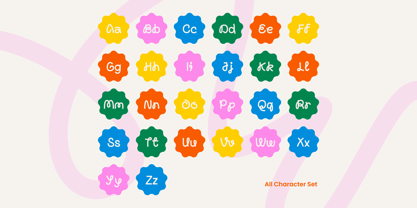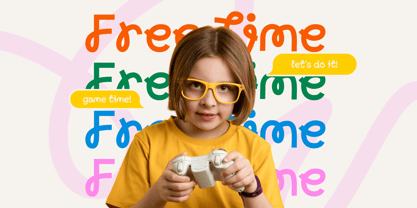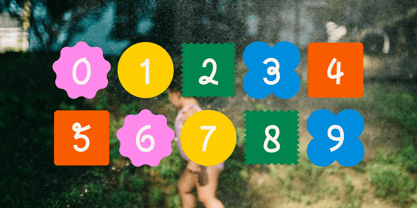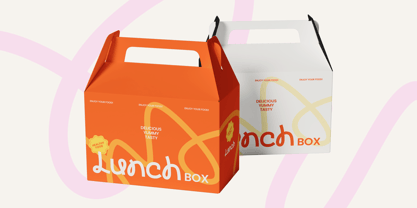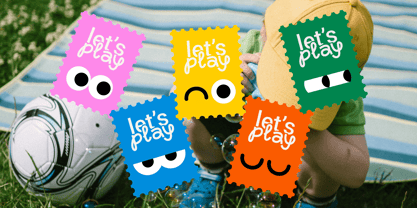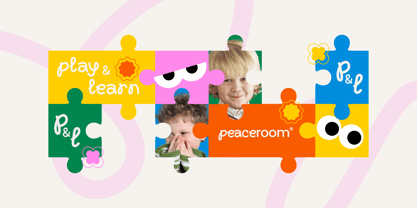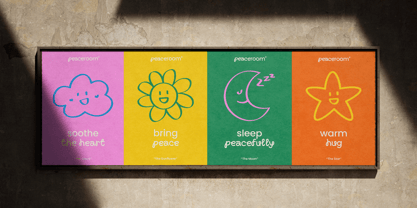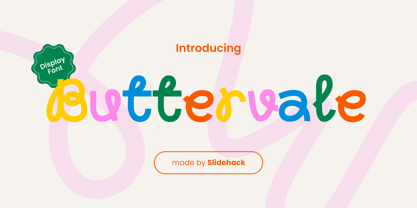
Buttervale
by Slidehack
The Buttervale Font Family was designed by Panca Hasan and published by Slidehack. Buttervale contains 1 styles. More about this family
Buttervale is a vibrant, curly display font designed for playful and joyful branding. Perfect for kids' projects, logos, packaging, posters, and headlines. With quirky shapes and vibrant personality, it brings charm and energy to every design. Ideal for creative brands, children’s books, fun marketing, and eye-catching social media visuals.